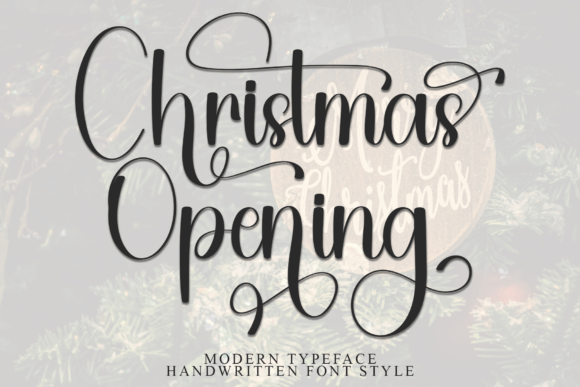
Christmas Opening Font: A Timeless Classic for Your Holiday Projects
As the holiday season approaches, designers and artists are on the lookout for the perfect font to add a touch of elegance and sophistication to their Christmas-themed projects. Look no further than the Christmas Opening Font, a stylish and beautiful typeface that exudes a contemporary atmosphere and impeccable form. Inspired by timeless classic calligraphy, this font is sure to enhance the beauty of your projects and leave a lasting impression on your audience.
Key Features of Christmas Opening Font
- Balanced and Varied: The font was designed to be balanced and varied, ensuring that it looks great in a variety of contexts and applications. Whether you’re creating a festive holiday card, a promotional poster, or a website header, the Christmas Opening Font is sure to perform beautifully.
- Contemporary Atmosphere: Despite being inspired by classic calligraphy, the Christmas Opening Font has a distinctly contemporary feel. Its clean lines, elegant curves, and sophisticated style make it perfect for designers who want to create modern and stylish holiday-themed designs.
- Impeccable Form: The font’s impeccable form is evident in its precise lettering, careful attention to detail, and beautiful ligatures. Each character has been carefully crafted to ensure that the font looks great in a variety of sizes and resolutions.
The Inspiration Behind Christmas Opening Font
The Christmas Opening Font was inspired by timeless classic calligraphy, which is characterized by its elegant lettering, beautiful flourishes, and sophisticated style. Classic calligraphy has been a staple of fine art and design for centuries, and its influence can be seen in many modern fonts and typefaces.
The designers of the Christmas Opening Font took inspiration from the classic calligraphic traditions and incorporated them into a modern and stylish font. The result is a typeface that is both elegant and contemporary, perfect for designers who want to create beautiful and sophisticated holiday-themed designs.
Uses for Christmas Opening Font
The Christmas Opening Font is a versatile typeface that can be used in a variety of contexts and applications. Here are a few ideas to get you started:
- Holiday Cards and Invitations: The Christmas Opening Font is perfect for creating beautiful and elegant holiday cards and invitations. Its sophisticated style and classic feel make it ideal for formal and informal events.
- Promotional Posters and Flyers: The font’s clean lines and elegant curves make it perfect for creating eye-catching promotional posters and flyers. Use it to promote your holiday sales, events, and promotions.
- Website Headers and Logos: The Christmas Opening Font can be used to create beautiful and elegant website headers and logos. Its contemporary feel and sophisticated style make it perfect for businesses and organizations that want to create a professional and stylish online presence.
- Social Media Graphics: The font’s versatility and style make it perfect for creating social media graphics, such as Facebook and Twitter headers, Instagram graphics, and more.
The Benefits of Using Christmas Opening Font
The Christmas Opening Font offers a range of benefits for designers and artists, including:
- Elegance and Sophistication: The font’s elegant and sophisticated style makes it perfect for creating high-end holiday-themed designs.
- Versatility: The Christmas Opening Font can be used in a variety of contexts and applications, from holiday cards and invitations to promotional posters and website headers.
- Easy to Use: The font’s PUA encoding makes it easy to access and use, even for designers who are new to typography.
- Timeless Appeal: The font’s classic feel and timeless appeal ensure that it will remain stylish and relevant for years to come.
The Christmas Opening Font is a beautiful and elegant typeface that is perfect for designers and artists who want to create sophisticated and stylish holiday-themed designs. Its timeless classic feel, impeccable form, and contemporary atmosphere make it a versatile and valuable addition to any designer’s toolkit. Whether you’re creating holiday cards and invitations, promotional posters and flyers, or website headers and logos, the Christmas Opening Font is sure to enhance the beauty of your projects and leave a lasting impression on your audience.